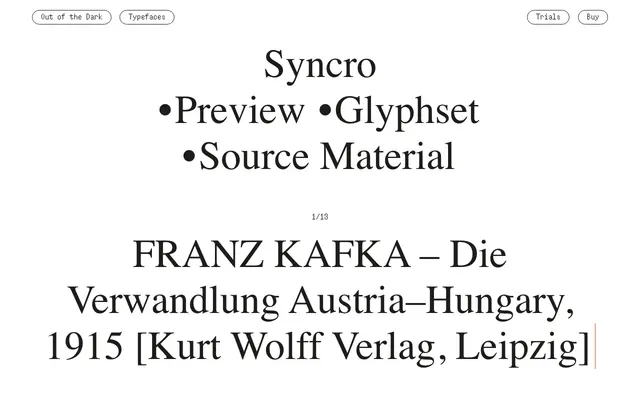
A five-style grotesque from Swiss foundry Out of the Dark, spanning Book and Bold weights with italic and a monospaced companion.
Syncro offers a compact five-style family covering Book and Bold uprights, an italic, and two mono cuts including a Mono Italic. The inclusion of a monospaced variant suggests applications across editorial, UI and coded or technical contexts. Released by Out of the Dark, a Swiss foundry known for tightly scoped, purposeful type releases.
The family includes upright and italic cuts alongside a monospaced variant, suggesting a functional grotesque with utilitarian intentions. The naming conventions and Swiss foundry context point to a structured, neutral grotesque lineage.